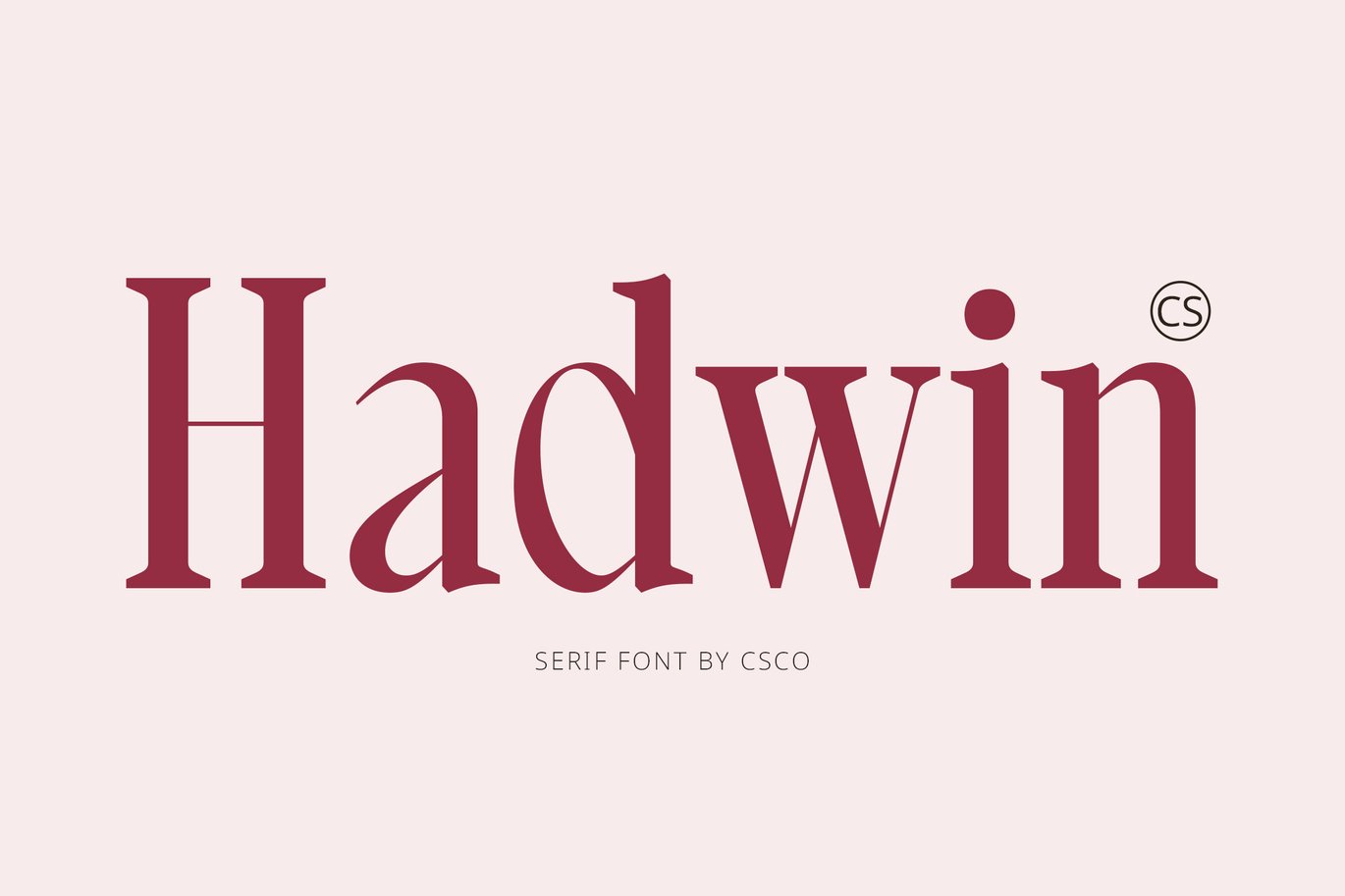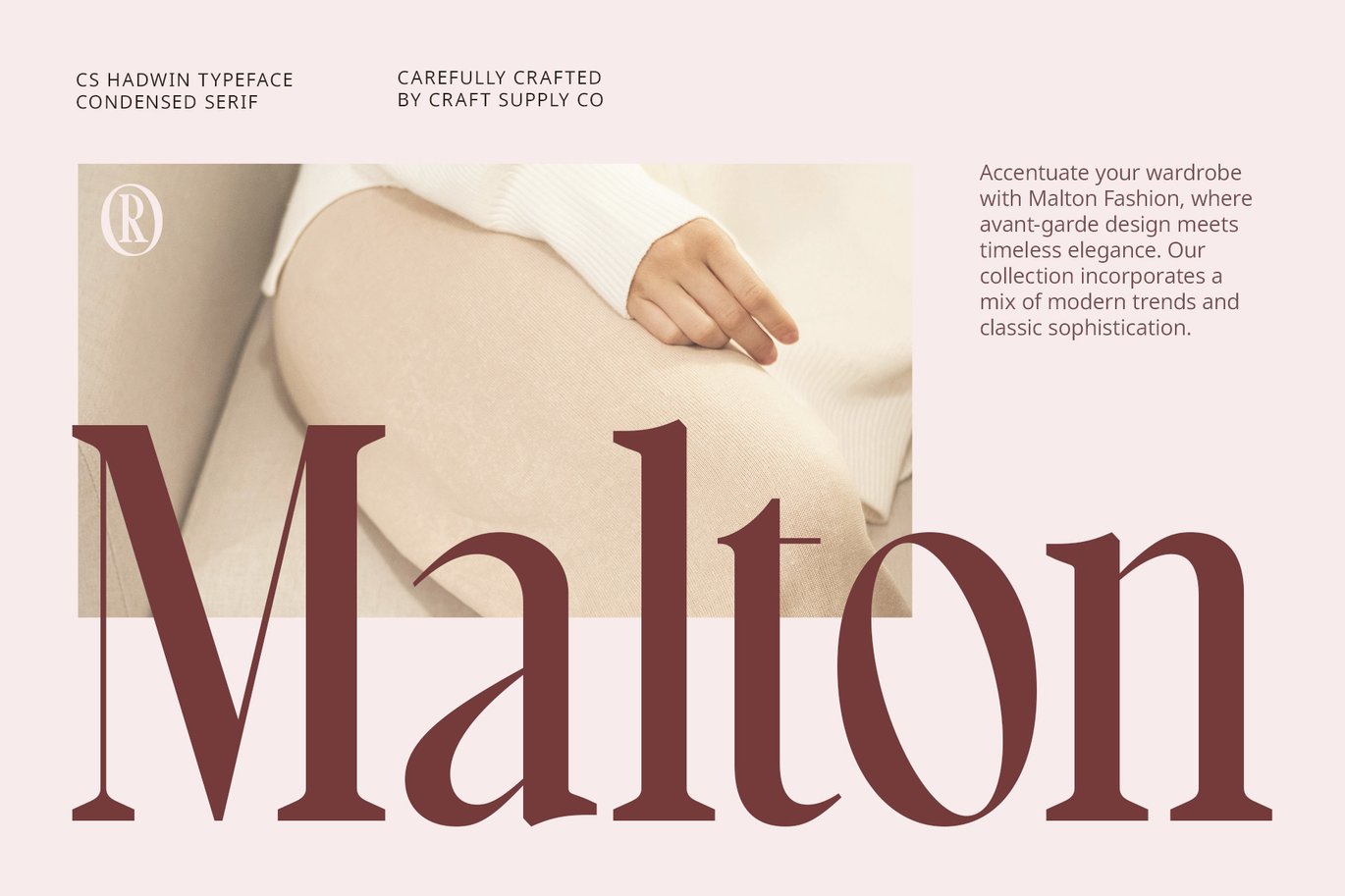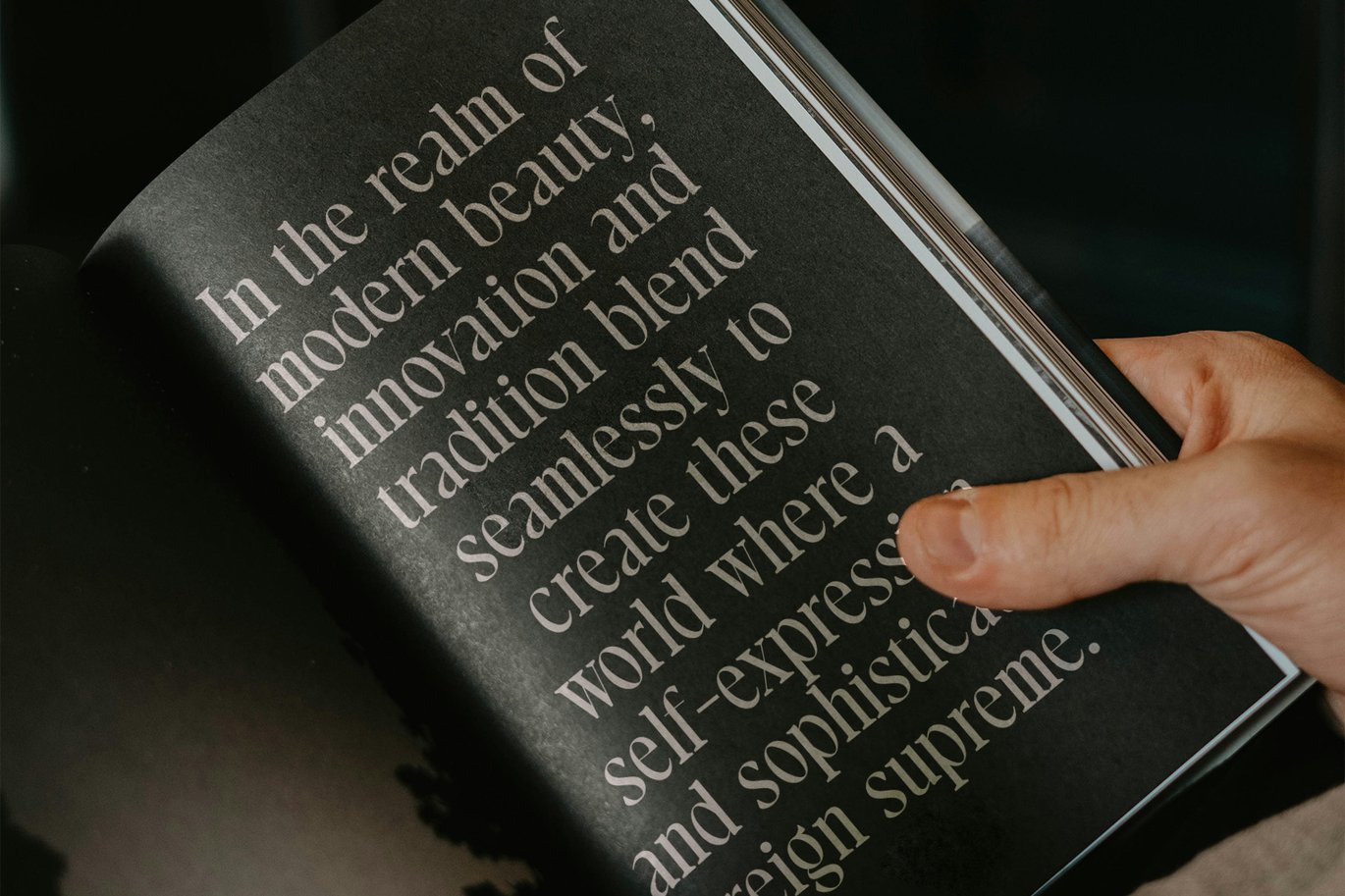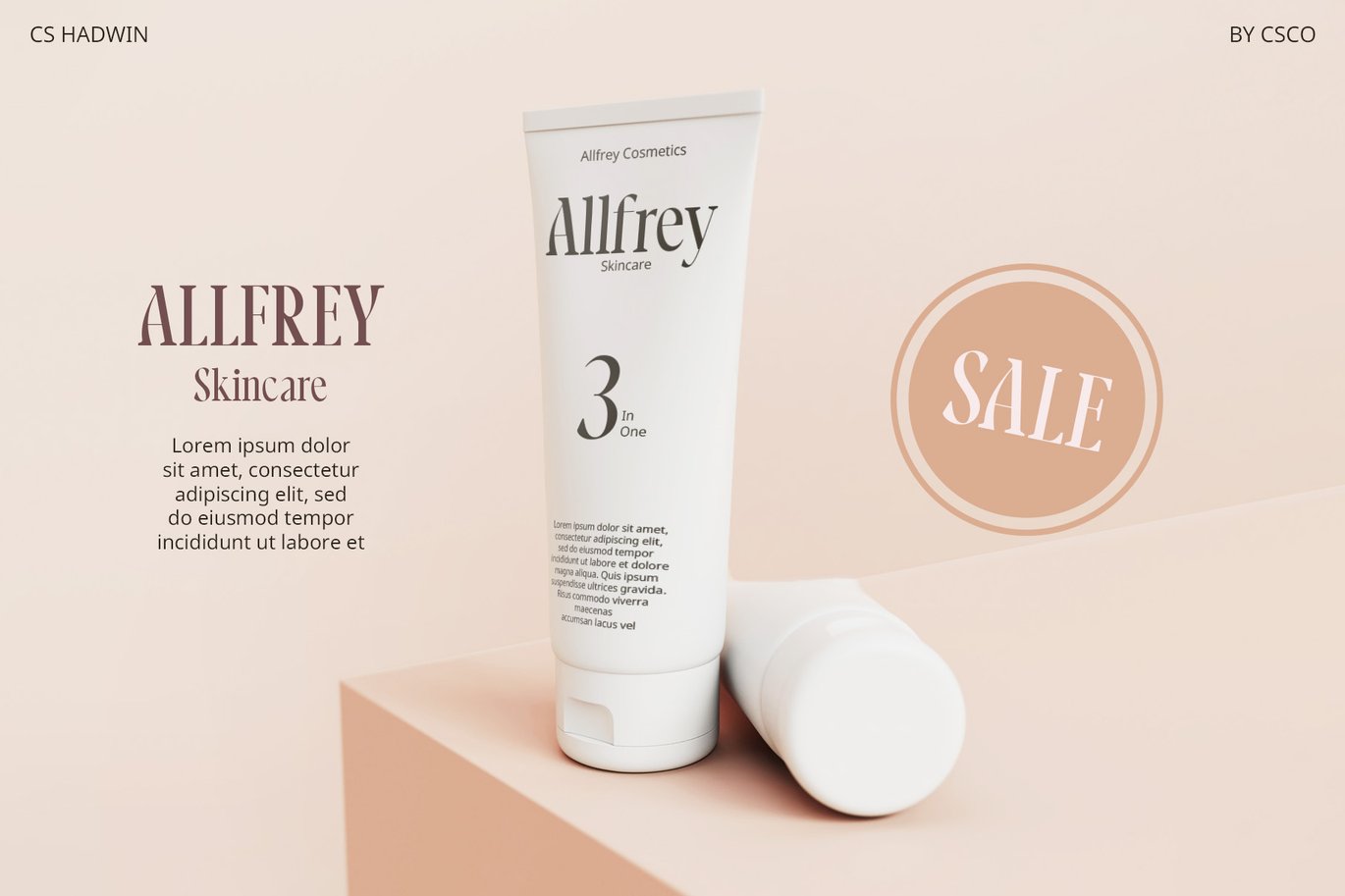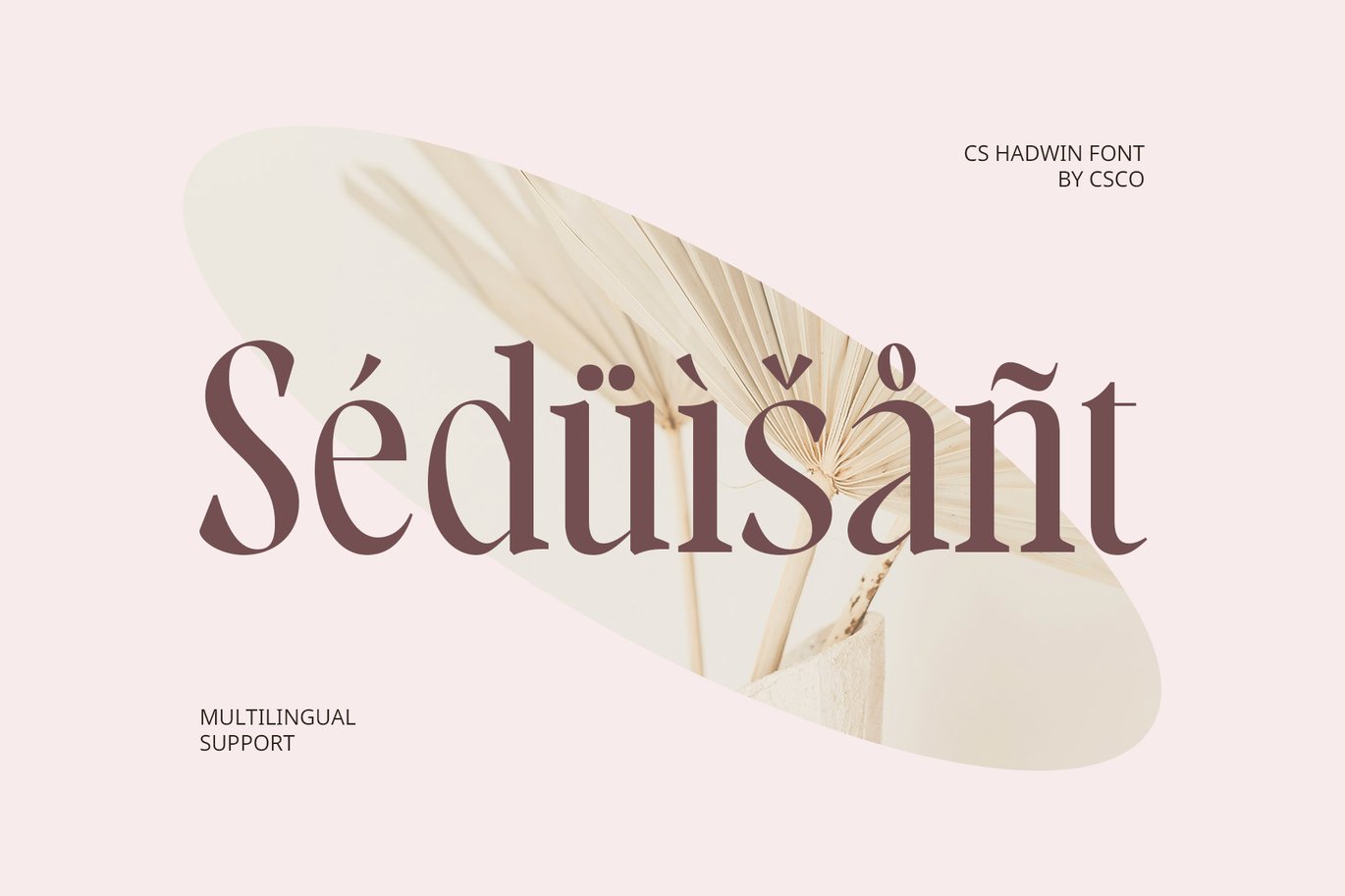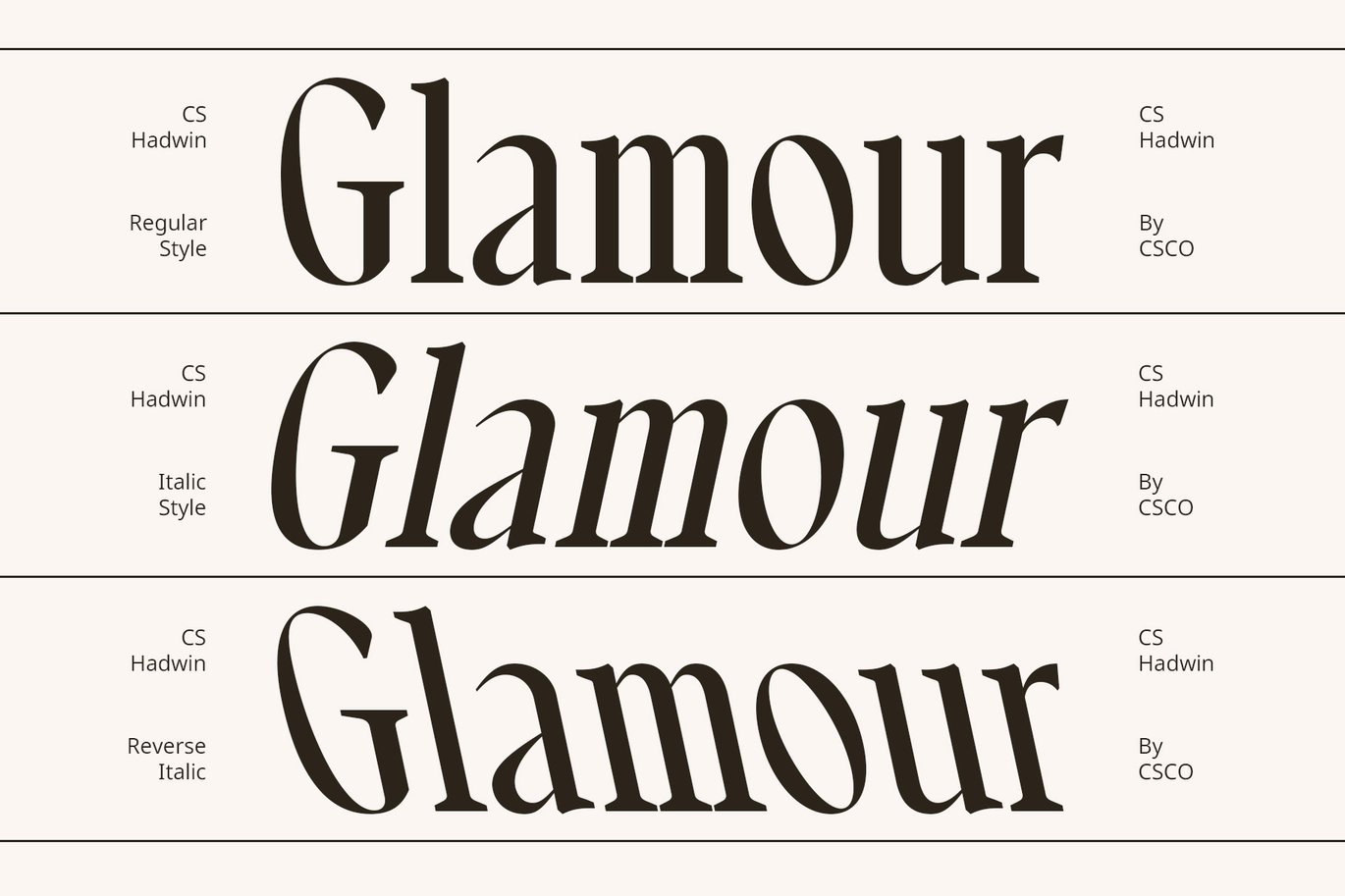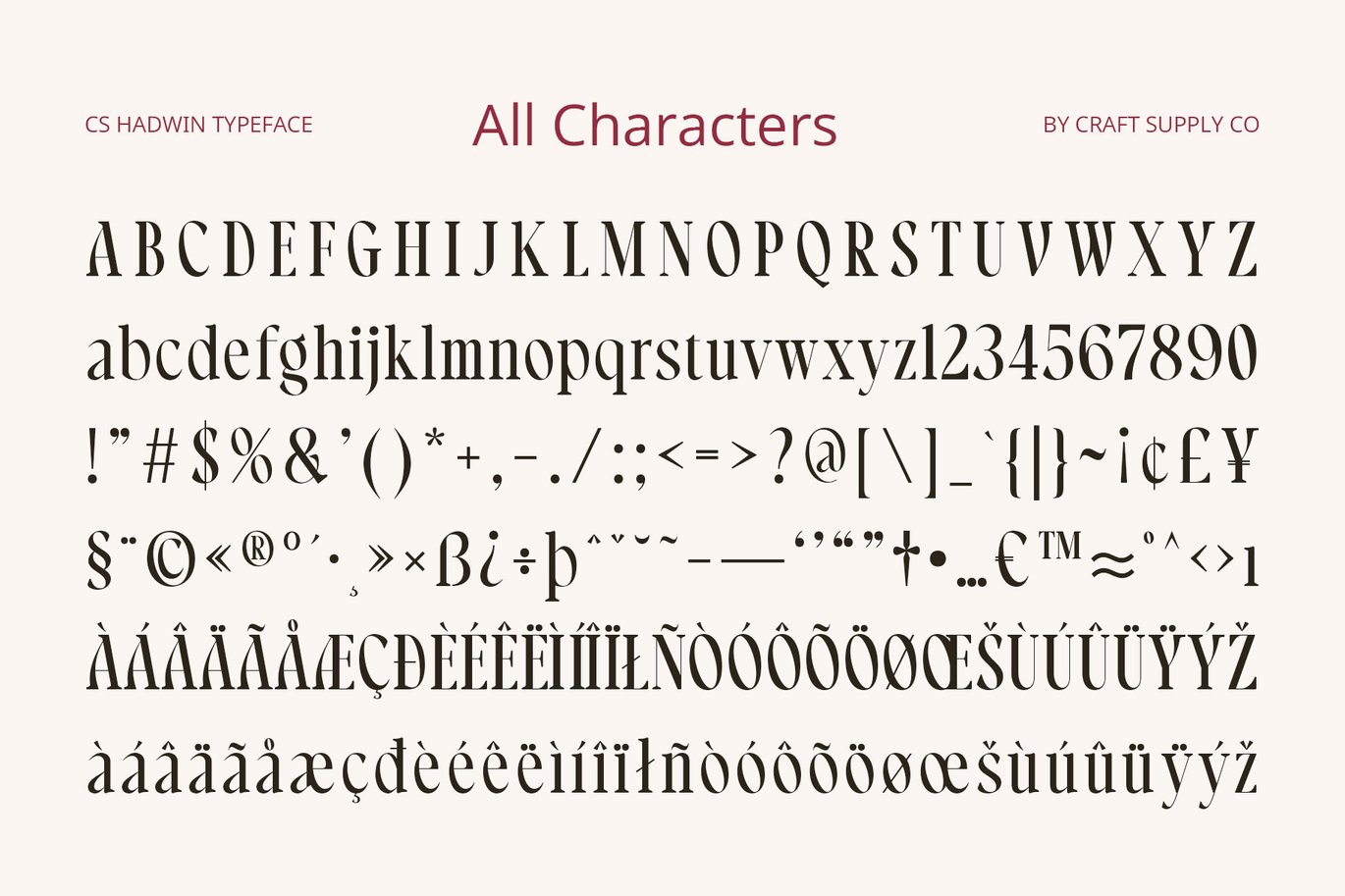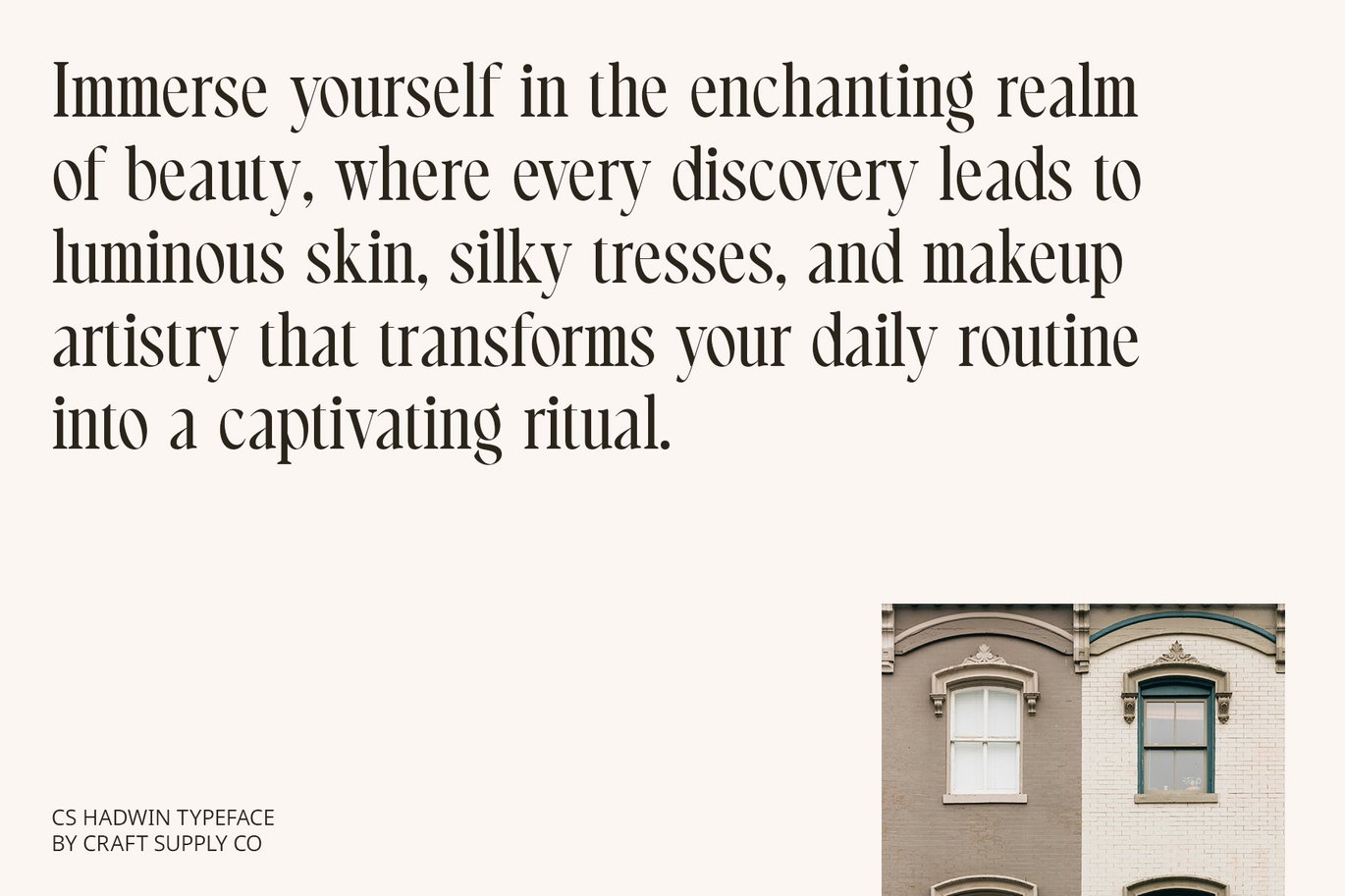
CS Hadwin – Classic Font
CS Hadwin – Classic Font: Timeless Elegance with Refined Sophistication
Classic Serif Font with Traditional Charm
CS Hadwin is a classic serif font that seamlessly blends traditional charm with refined sophistication. Its timeless design is characterized by well-defined serifs and balanced proportions, making it a perfect choice for upscale branding and elegant editorial layouts.
Elegant Design with Well-Defined Serifs
The font’s well-defined serifs and balanced proportions contribute to its graceful and polished appearance. This design choice ensures a sophisticated look that enhances the overall aesthetic of high-end invitations and formal communications.
Graceful and Polished for Upscale Projects
CS Hadwin exudes a sense of classic elegance, making it ideal for projects that require a touch of refinement. Whether used for luxurious branding, stylish editorial work, or sophisticated invitations, this font provides a timeless appeal that elevates any design.
Ideal for Classic and Elegant Applications
With its classic serif features and elegant design, CS Hadwin is well-suited for high-end projects that demand a blend of traditional charm and modern sophistication. Its versatile style makes it an excellent choice for a variety of upscale and formal applications.